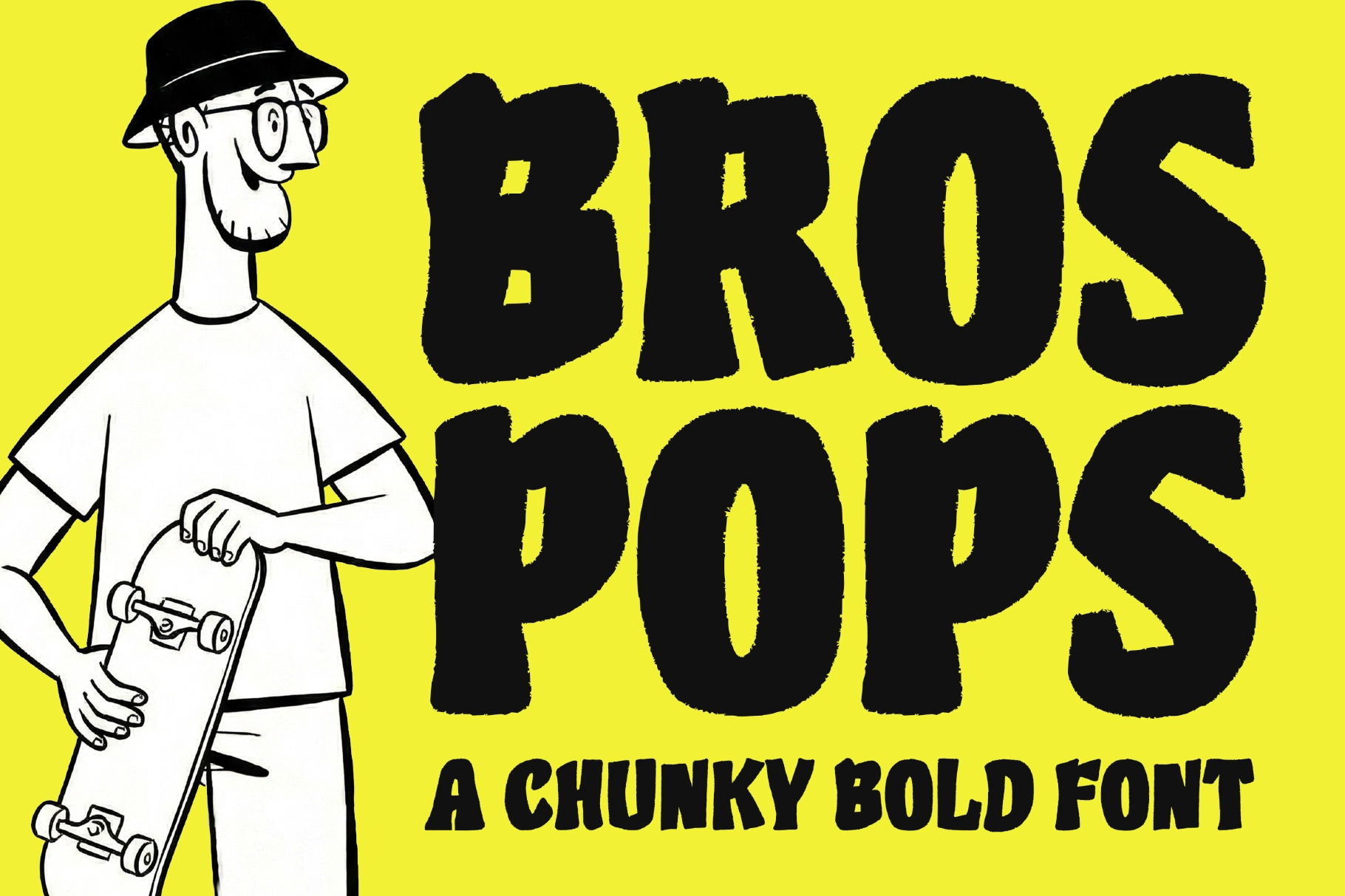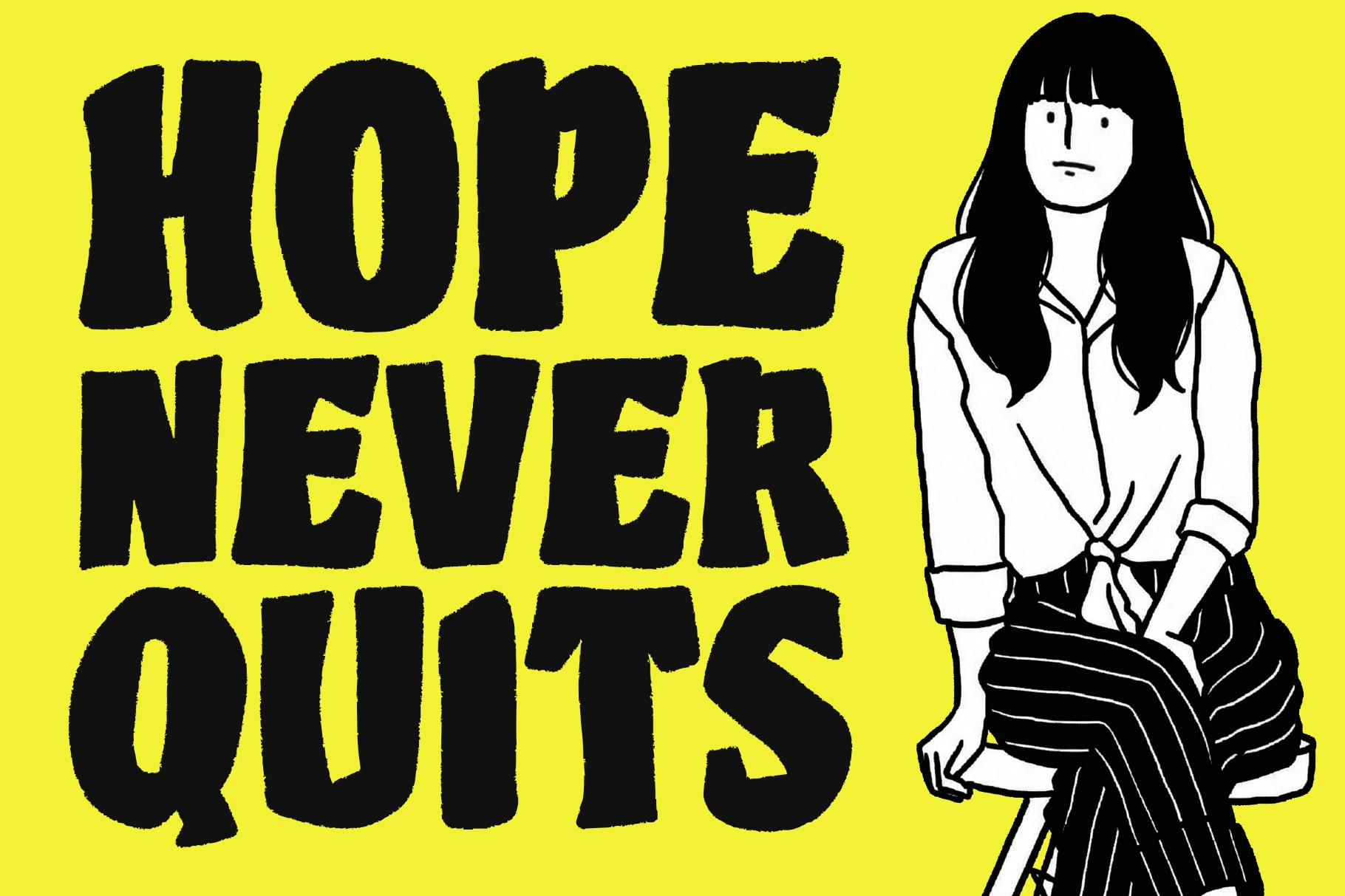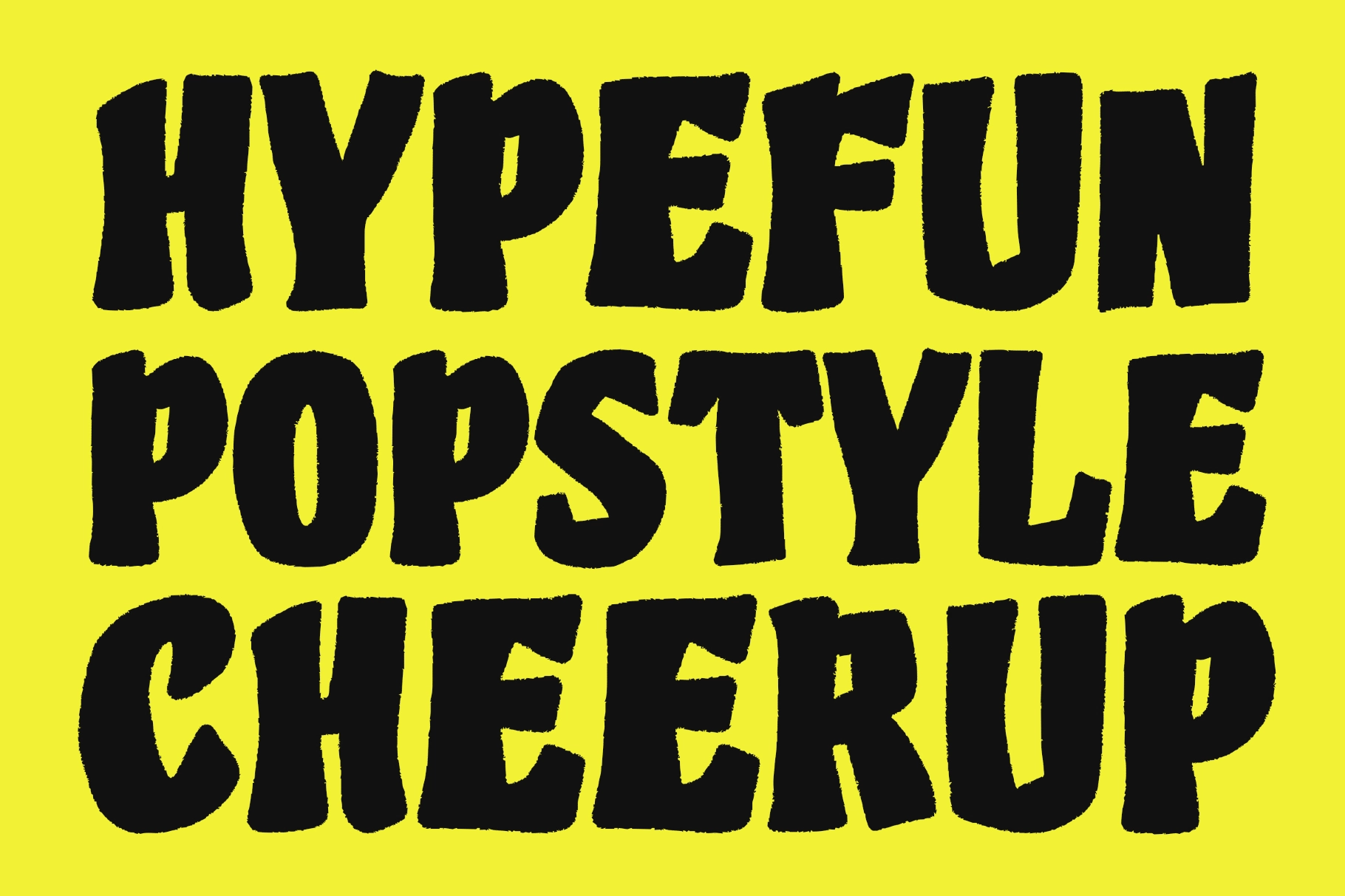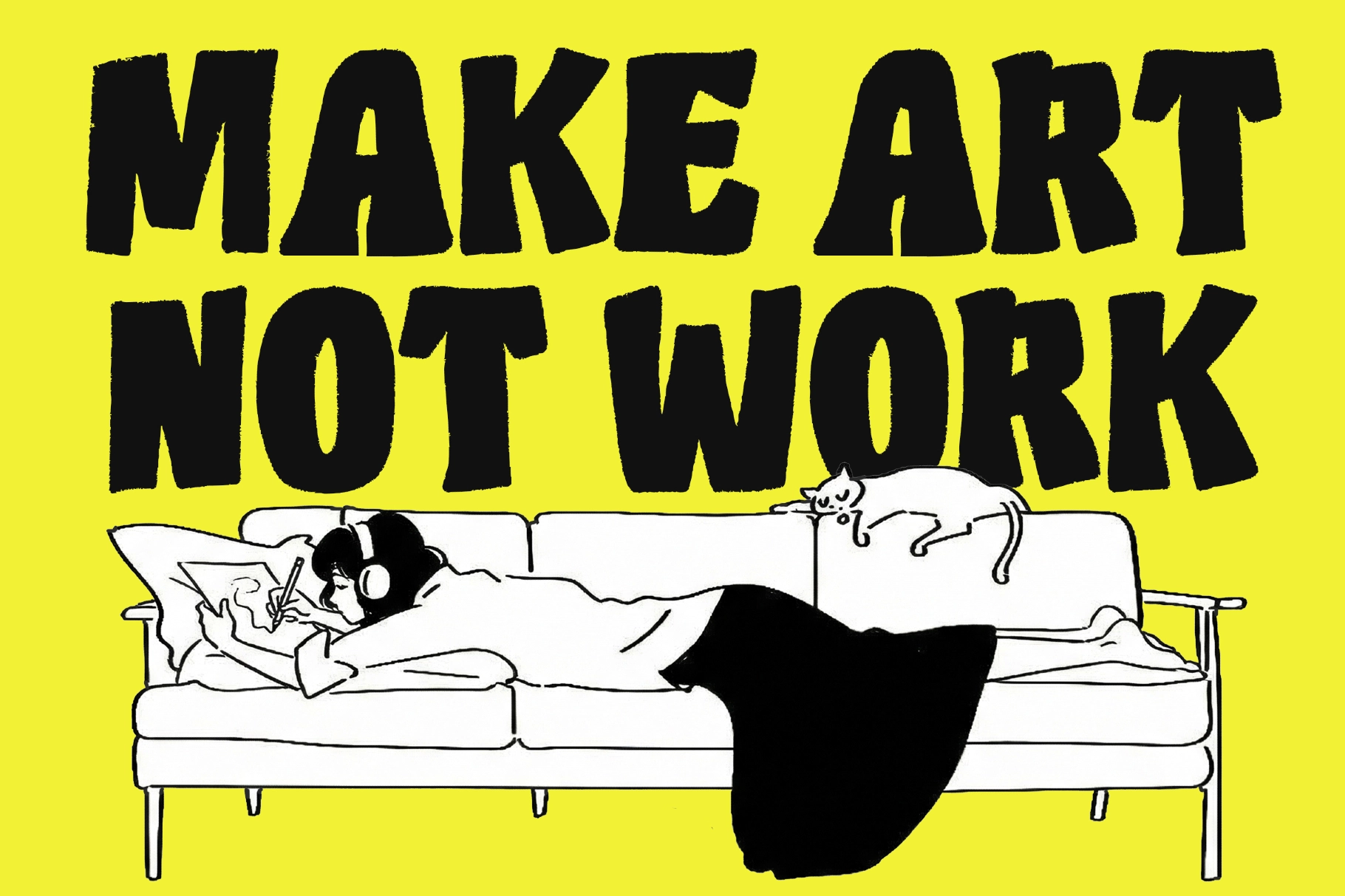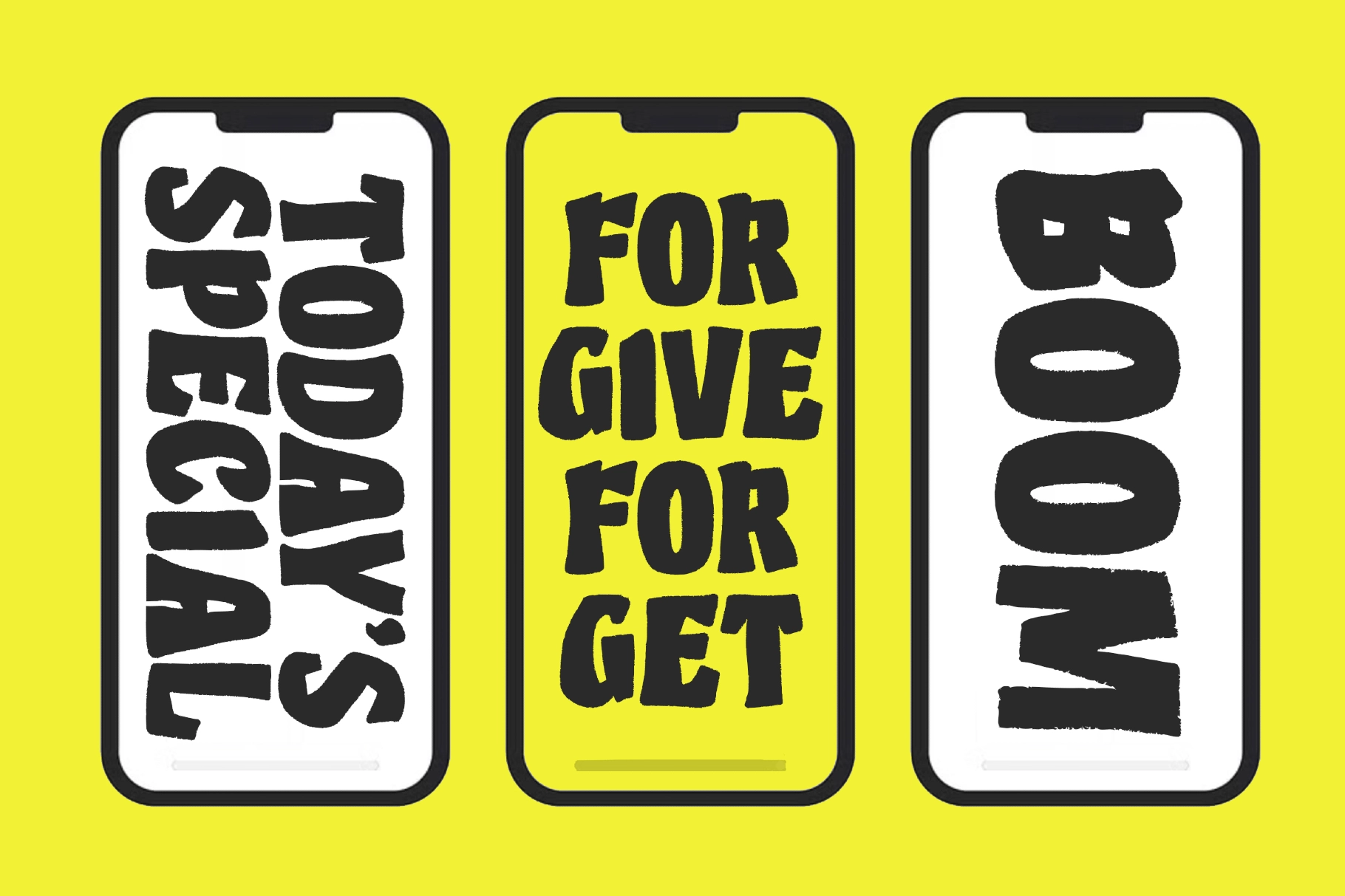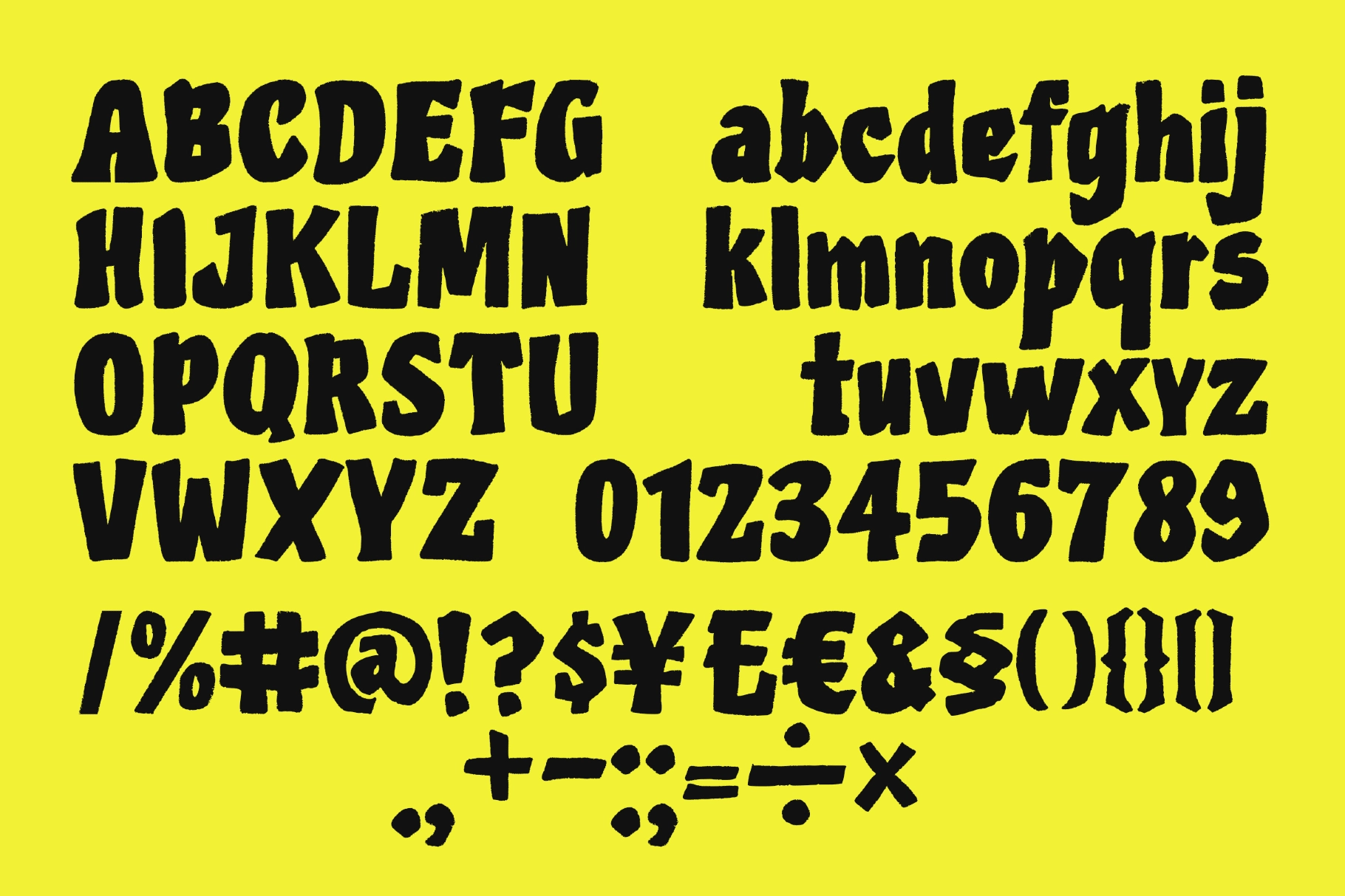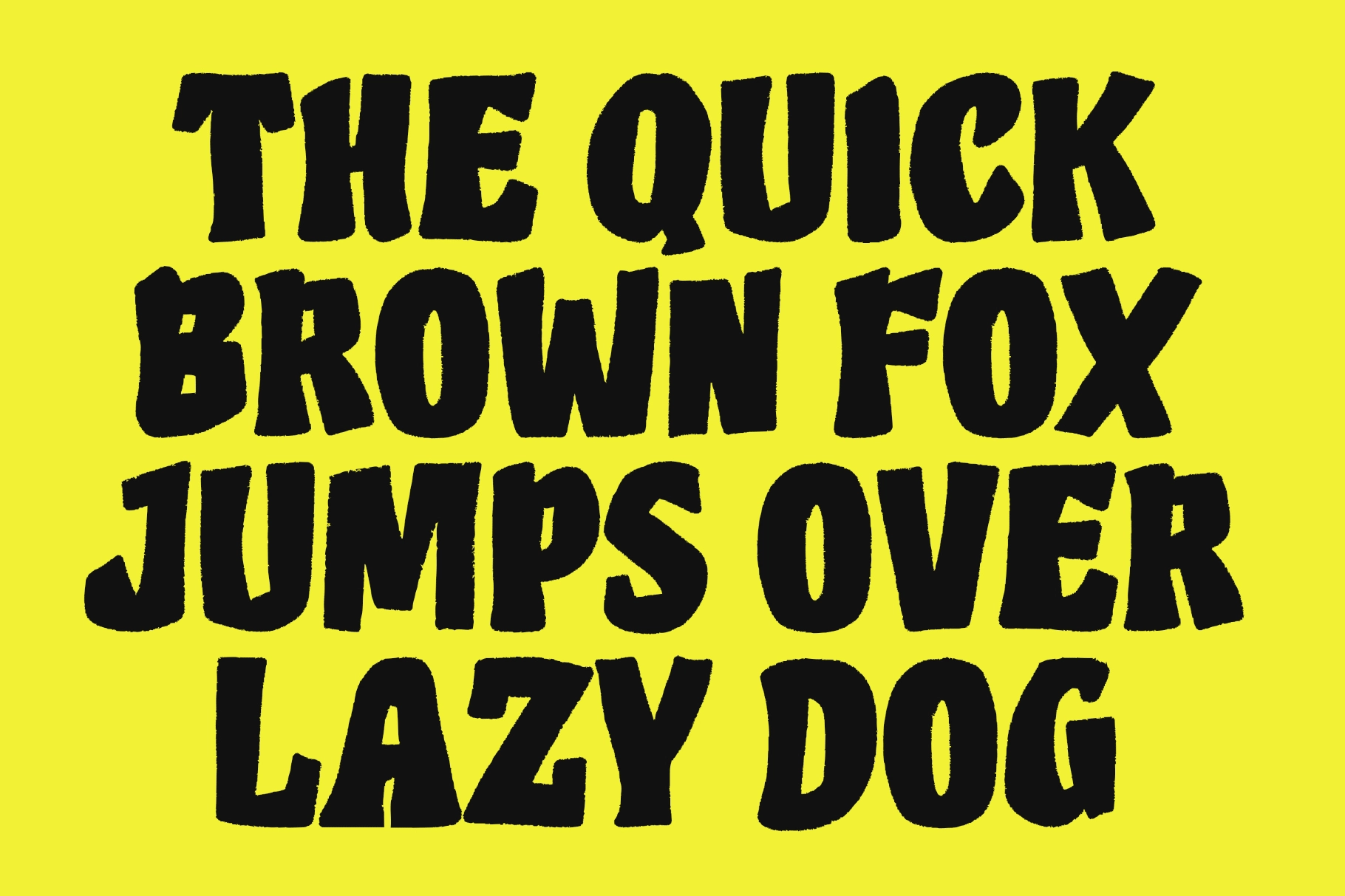
Bros Pops – Chunky Bold Display Font
This display font is loud, chunky, and wonderfully unserious in the best possible way. Heavy letterforms, rough-cut edges, and bouncy proportions give it the look of hand-drawn poster lettering with a pop-comic attitude.
Bros Pops works best where the message needs to land fast: gig posters, sticker packs, merch graphics, food packaging, YouTube thumbnails, comic covers, zines, kids’ branding, event flyers, social media headers, album artwork, and bold logo concepts. Its rounded weight keeps the tone friendly, while the uneven shapes add enough noise to avoid looking too polished.